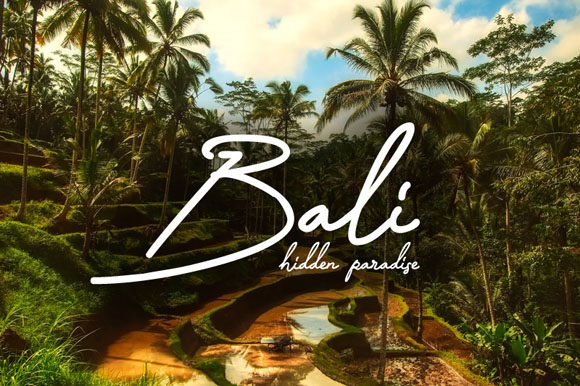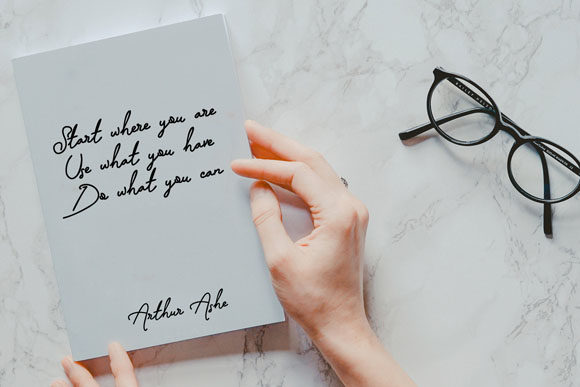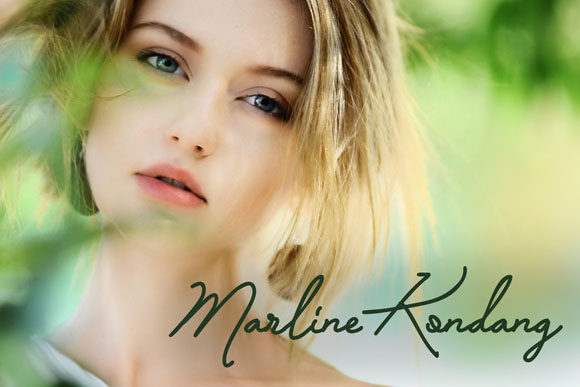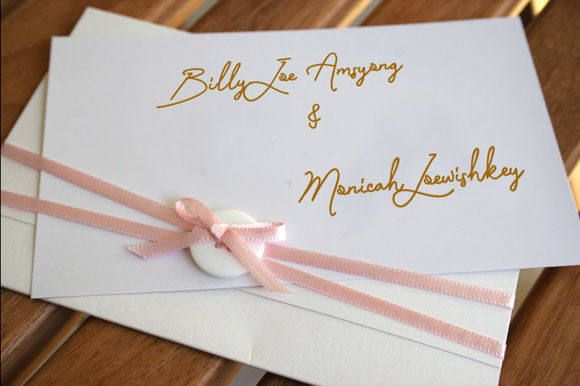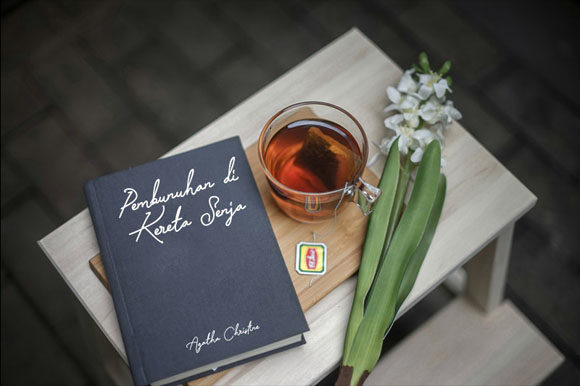
Introduction to Manallagi Font
Have you ever been working on a creative project, pouring your heart and soul into a design, only to feel like something’s missing? The perfect font can make all the difference, elevating your work from good to great. And that’s exactly what the Manallagi Font does – it brings a touch of authenticity to your designs, making them truly stand out.
As a designer, you’re always on the lookout for high-quality design resources that can help you create stunning visuals. The Manallagi Font is one such resource that’s sure to impress. With its stunningly light and modern handwritten style, it’s perfect for adding a personal touch to your projects.
Key Features of Manallagi Font
- High-quality, free download font ideal for creative projects
- Unique design with a transparent background, perfect for adding depth and visual interest to designs
- Designed to be highly legible and visually appealing, making it perfect for use in logos, branding, and other design elements
Honest Review: Manallagi Font
I recently stumbled upon the Manallagi Font while searching for a unique design resource for a creative project. I was impressed by its high quality and decided to give it a try.
Here are some things that work well: ✨
- Unique and elegant design: The Manallagi Font has a distinctive style that sets it apart from other fonts.
- High resolution: The font is available in high resolution, making it suitable for large-scale designs.
- Transparent background: The font has a transparent background, allowing for easy integration with other design elements.
However, there are a few limitations: ⚠️
- Limited font sizes: The font is only available in a few sizes, which may limit its versatility.
- No bold or italic versions: The font does not come with bold or italic versions, which may be a drawback for designers who need these features.
Overall, I’m impressed with the Manallagi Font. It’s a great addition to any designer’s toolkit, and its unique style makes it a great choice for creative projects. With a few tweaks to address its limitations, it could be an even more valuable design resource.
Tips for Getting the Most Out of Manallagi Font
Use the Manallagi Font with a transparent background to create a clean and modern design. Experiment with different font sizes and colors to add emphasis and visual interest to your design. The Manallagi Font is a high quality design resource that can help take your creative project to the next level.
Common Use Cases for Manallagi Font
The Manallagi Font is perfect for creating logos, graphics, and designs for your business or personal brand. It’s also great for creating presentations, documents, and other visual content. With its high quality and versatility, the Manallagi Font is a valuable design resource for any creative project.
Alternatives to Manallagi Font
Great Vibes Font is a high-quality, elegant script font perfect for creative projects that require a touch of sophistication. It features a transparent background, making it ideal for overlaying on images or videos. Great Vibes Font is free to download and is suitable for various design resources, including logos, invitations, and social media graphics.
When to use: Wedding invitations, event promotions, and branding materials.
Comparison to Manallagi Font: Great Vibes Font has a more elegant and refined feel, whereas Manallagi Font has a more playful and casual vibe.